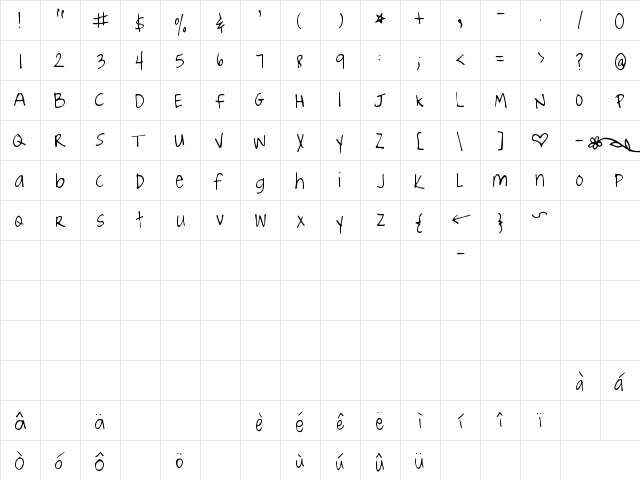
Joyful Juliana Regular
| Designer | Kimberly Geswein |
Design Context for Joyful Juliana Typeface
Joyful Juliana takes a measured approach to typography — its balanced proportions and neutral character make it a reliable workhorse for both digital and print work.